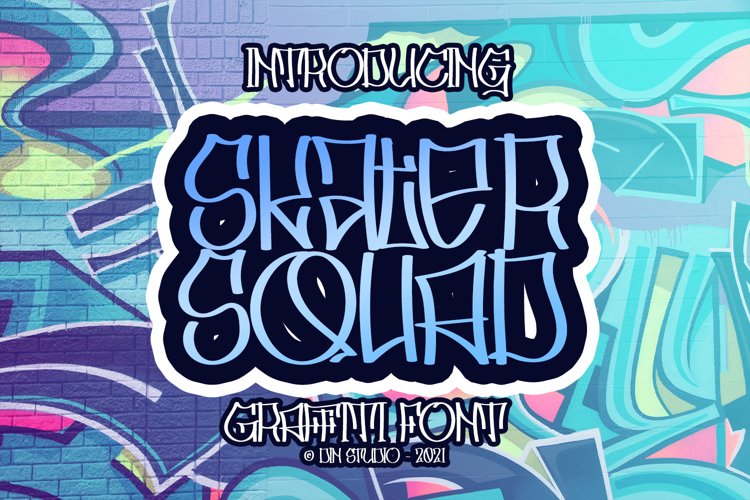
Hi, Everyone! Have you been looking for a graffiti font? Do you dream of creating headings that stand out and inspire creativity, imagination, and prominence style?
Introducing Skater Squad- A Grafiti Font
Skater Squad is a bold and angular with a distinct street vibe. This font can be used for a host of different content needs and projects. Create gorgeous printed quotes, standout packaging, or beautiful t-shirts! You can even use it to create amazing headings, logos, menus, and social media graphics.